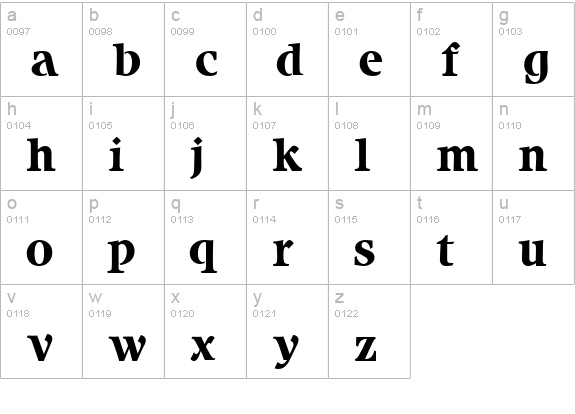
Isbell Bold is a strong, high-contrast variant in the Isbell typeface family \xE2\x80\x94 well suited to headlines, attention-grabbing titles, and strong calls-to-action.
Isbell Bold font is a stunning display font that exudes confidence and elegance. With its strong and bold letterforms, it commands attention and leaves a lasting impression. This font is perfect for creating eye-catching headlines, titles, and logos that demand attention. The Isbell Bold font features clean lines and sharp edges, giving it a modern and sophisticated look. Its bold weight adds a sense of power and strength to any design, making it an ideal choice for projects that require a strong and impactful visual presence. One of the best things about Isbell Bold font is that it is free! Yes, you read that right. This incredible font is freely available to download at FontsMarket.com. This means that you can use it in your personal and commercial projects without any restrictions or limitations. Whether you're designing a website, creating a poster, or crafting a branding identity, Isbell Bold font will elevate your design and give it a professional and polished finish. So why wait? Download Isbell Bold font today from FontsMarket.com and start creating stunning designs that will captivate your audience. With its impressive aesthetics and free availability, Isbell Bold font is a must-have for any designer looking to make a bold statement.